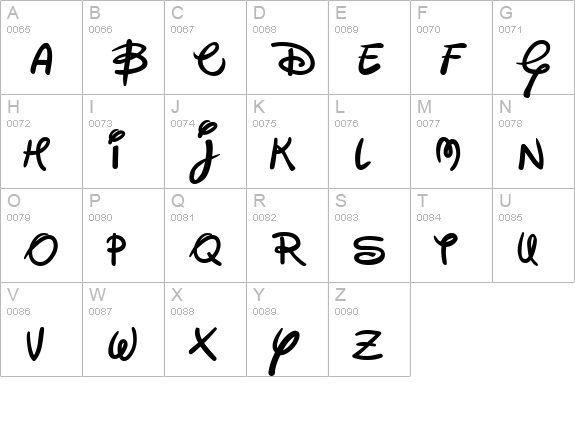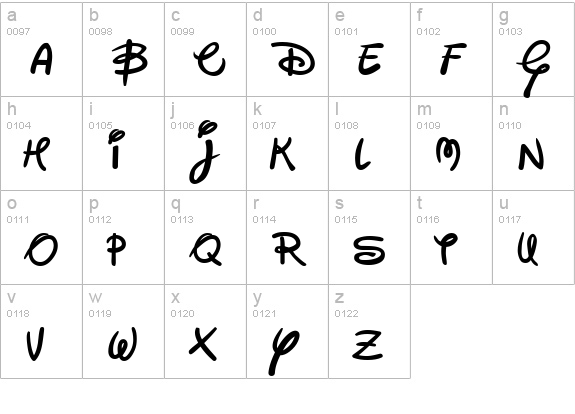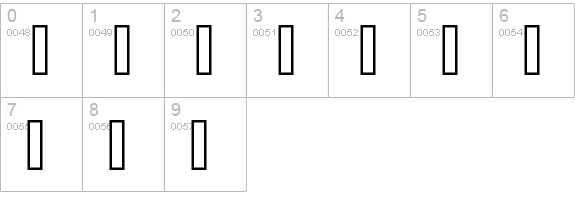
Walter Font Details
Walter font is a modern and stylish typeface that exudes elegance and sophistication. Its sleek and clean lines make it perfect for various design projects, from branding and logo design to advertising and packaging. With its unique and distinctive letterforms, Walter font captures attention and brings a touch of refinement to any design. What sets Walter font apart is not only its stunning aesthetics but also its accessibility. This remarkable font is available for free, allowing designers and creatives to enhance their projects without any cost. You can easily download Walter font at FontsMarket.com, a trusted source for high-quality fonts. Whether you are a professional designer or simply someone looking to add a touch of class to your DIY projects, Walter font is an excellent choice. Its versatility and timeless appeal make it suitable for a wide range of applications, making your designs stand out from the crowd. Don't miss the opportunity to elevate your creative endeavors with the freely available Walter font from FontsMarket.com.